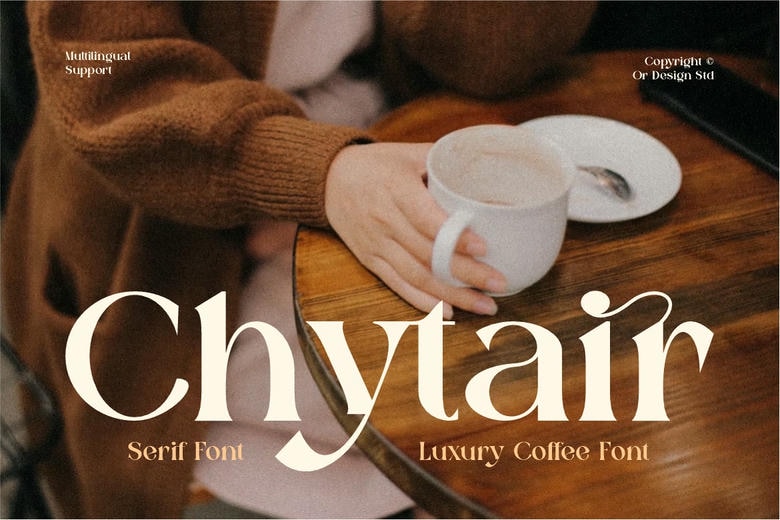
Add a touch of cozy sophistication and modern elegance to your designs with Chytair. This font is perfect for coffee shop branding, cafe menus, stylish packaging, magazine headers, boutique logos, social media graphics, romantic quote prints, and custom Cricut or Silhouette projects.
Chytair Serif Font